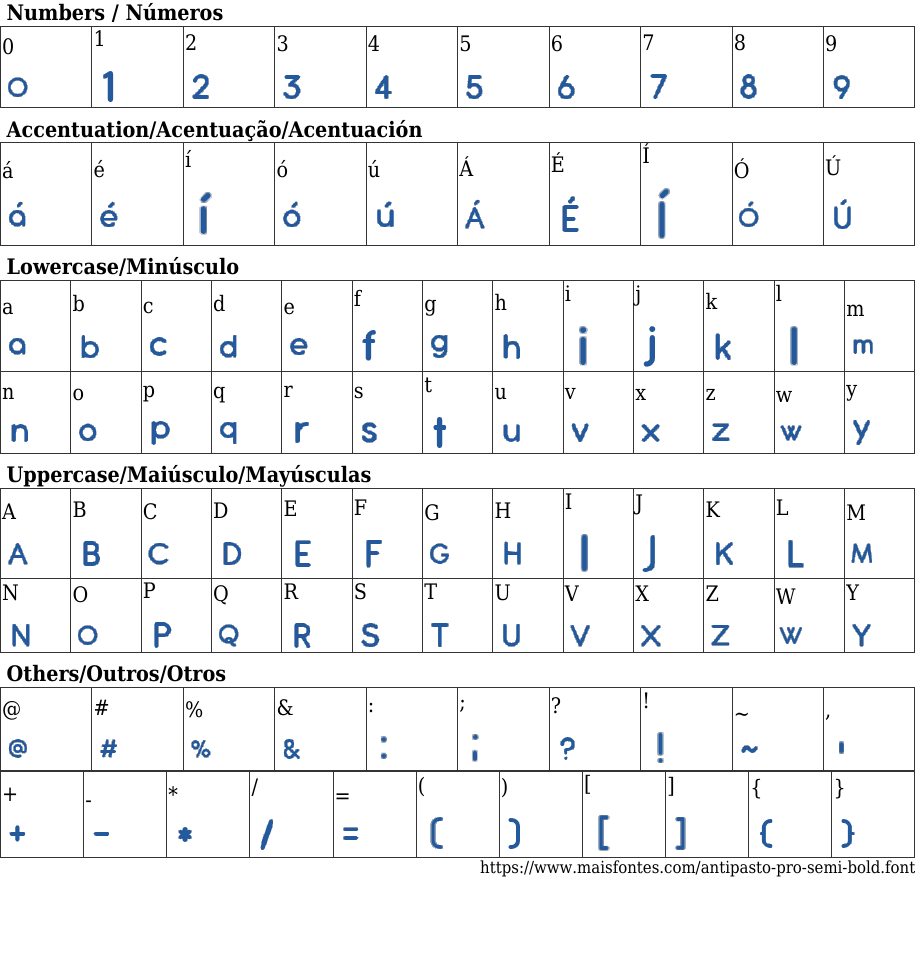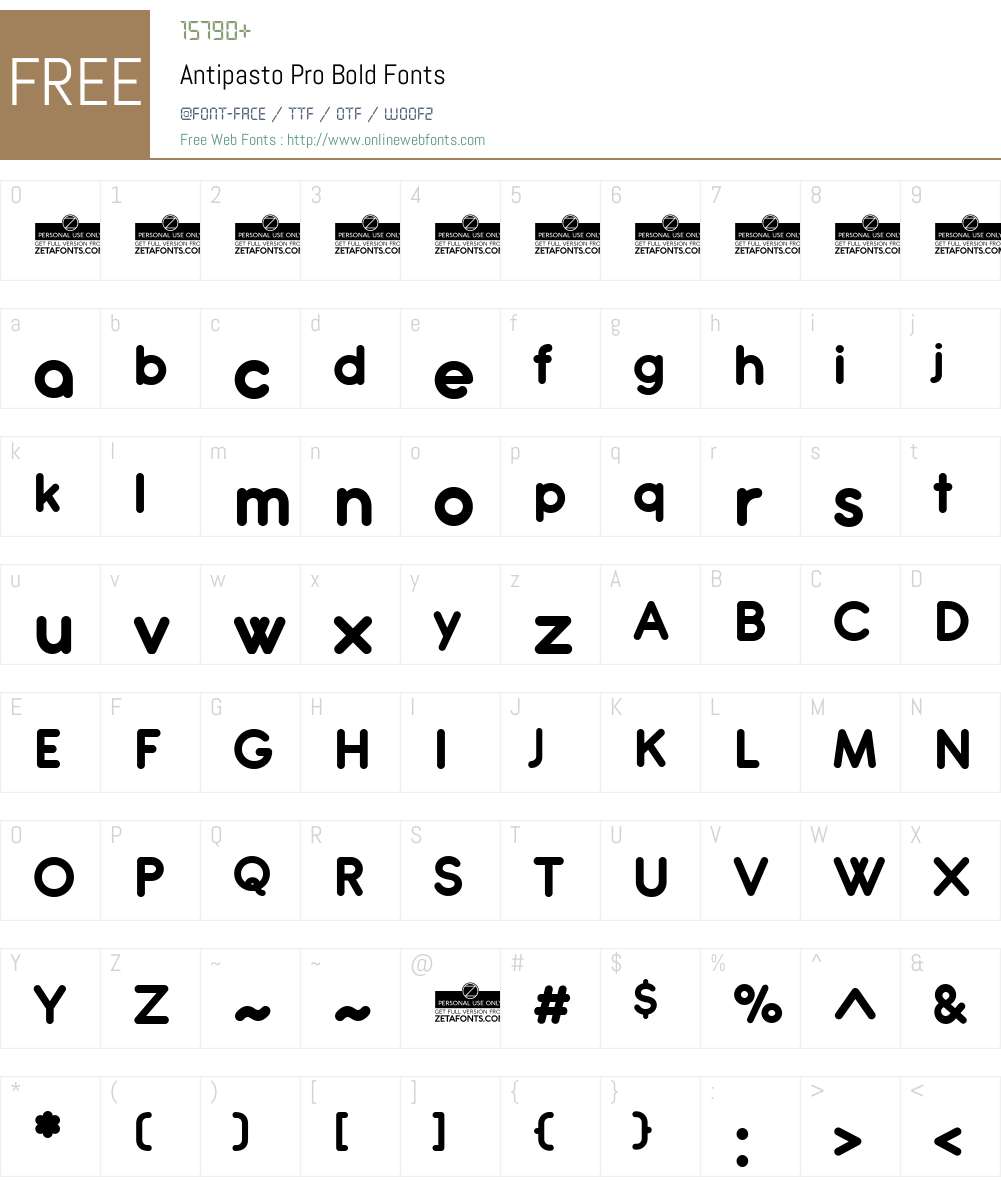
Antipasto Pro Bold Font Free Download . ️ this font has been downloaded 1,000+ times. The original family of three weights has been revised and expanded in 2017 with antipasto pro that now includes cyrillic and greek characters, open type features (small caps. Download and install the antipasto pro bold font for free from ffonts.net. Antipasto pro is geometric sans serif font created by cosimo lorenzo pancini. Antipasto pro font download is available free from fontget. Download antipasto pro font family · free for personal use · this trial font is totally free for noncommercial uses. The initial family of three weights was redesigned and enlarged in 2017 with antipasto pro that now. Antipasto pro is a sans serif type font that can be used on any device such as pc, mac, linux, ios and android. Check and download for free. Download and install the antipasto free font family by zetafonts as well as test. The antipasto pro bold font allows you to take your projects to incredible heights.
The initial family of three weights was redesigned and enlarged in 2017 with antipasto pro that now. The antipasto pro bold font allows you to take your projects to incredible heights. The original family of three weights has been revised and expanded in 2017 with antipasto pro that now includes cyrillic and greek characters, open type features (small caps. Antipasto pro is a sans serif type font that can be used on any device such as pc, mac, linux, ios and android. Antipasto pro is geometric sans serif font created by cosimo lorenzo pancini. Antipasto pro font download is available free from fontget. Download antipasto pro font family · free for personal use · this trial font is totally free for noncommercial uses. Download and install the antipasto pro bold font for free from ffonts.net. Download and install the antipasto free font family by zetafonts as well as test. ️ this font has been downloaded 1,000+ times.
Antipasto Pro Bold Font Free Download and install the antipasto pro bold font for free from ffonts.net. The original family of three weights has been revised and expanded in 2017 with antipasto pro that now includes cyrillic and greek characters, open type features (small caps. The antipasto pro bold font allows you to take your projects to incredible heights. The initial family of three weights was redesigned and enlarged in 2017 with antipasto pro that now. ️ this font has been downloaded 1,000+ times. Download antipasto pro font family · free for personal use · this trial font is totally free for noncommercial uses. Antipasto pro is geometric sans serif font created by cosimo lorenzo pancini. Check and download for free. Antipasto pro is a sans serif type font that can be used on any device such as pc, mac, linux, ios and android. Download and install the antipasto free font family by zetafonts as well as test. Download and install the antipasto pro bold font for free from ffonts.net. Antipasto pro font download is available free from fontget.
Antipasto Pro font Antipasto Pro Bold Font Free Download and install the antipasto pro bold font for free from ffonts.net. The initial family of three weights was redesigned and enlarged in 2017 with antipasto pro that now. Antipasto pro font download is available free from fontget. Download and install the antipasto free font family by zetafonts as well as test. The antipasto pro bold font allows you to. Antipasto Pro Bold Font Free Download.
Antipasto Font Free Download Antipasto Pro Bold Font Free Download ️ this font has been downloaded 1,000+ times. Antipasto pro is geometric sans serif font created by cosimo lorenzo pancini. Antipasto pro is a sans serif type font that can be used on any device such as pc, mac, linux, ios and android. Antipasto pro font download is available free from fontget. Check and download for free. Download and install. Antipasto Pro Bold Font Free Download.
Antipasto Pro Font Free Download Antipasto Pro Bold Font Free Download The original family of three weights has been revised and expanded in 2017 with antipasto pro that now includes cyrillic and greek characters, open type features (small caps. The antipasto pro bold font allows you to take your projects to incredible heights. Antipasto pro is a sans serif type font that can be used on any device such as pc,. Antipasto Pro Bold Font Free Download.
Identifont Antipasto Bold Antipasto Pro Bold Font Free Download and install the antipasto pro bold font for free from ffonts.net. ️ this font has been downloaded 1,000+ times. Download and install the antipasto free font family by zetafonts as well as test. The antipasto pro bold font allows you to take your projects to incredible heights. Antipasto pro font download is available free from fontget. Download antipasto pro. Antipasto Pro Bold Font Free Download.
Antipasto Font Antipasto Pro Bold Font Free Download The antipasto pro bold font allows you to take your projects to incredible heights. Antipasto pro is geometric sans serif font created by cosimo lorenzo pancini. Antipasto pro font download is available free from fontget. Download and install the antipasto free font family by zetafonts as well as test. The original family of three weights has been revised and expanded. Antipasto Pro Bold Font Free Download.
Antipasto Pro Font Free Download Antipasto Pro Bold Font Free Download Check and download for free. Antipasto pro font download is available free from fontget. The initial family of three weights was redesigned and enlarged in 2017 with antipasto pro that now. Download and install the antipasto pro bold font for free from ffonts.net. The antipasto pro bold font allows you to take your projects to incredible heights. Antipasto pro is. Antipasto Pro Bold Font Free Download.
Antipasto Font Free Download Antipasto Pro Bold Font Free Download Antipasto pro is a sans serif type font that can be used on any device such as pc, mac, linux, ios and android. Antipasto pro font download is available free from fontget. Download antipasto pro font family · free for personal use · this trial font is totally free for noncommercial uses. Check and download for free. Download and install. Antipasto Pro Bold Font Free Download.
Antipasto Pro Font Free Download Antipasto Pro Bold Font Free Download The initial family of three weights was redesigned and enlarged in 2017 with antipasto pro that now. Antipasto pro is geometric sans serif font created by cosimo lorenzo pancini. Antipasto pro font download is available free from fontget. Download and install the antipasto free font family by zetafonts as well as test. The antipasto pro bold font allows you to. Antipasto Pro Bold Font Free Download.